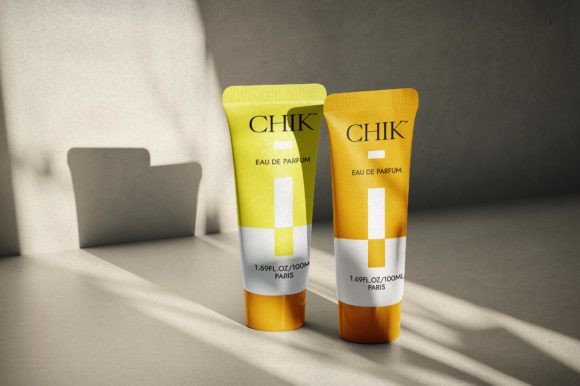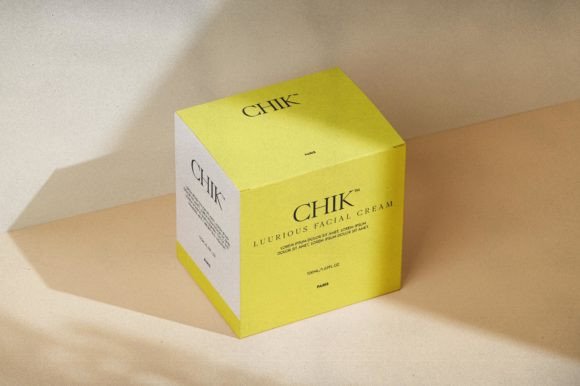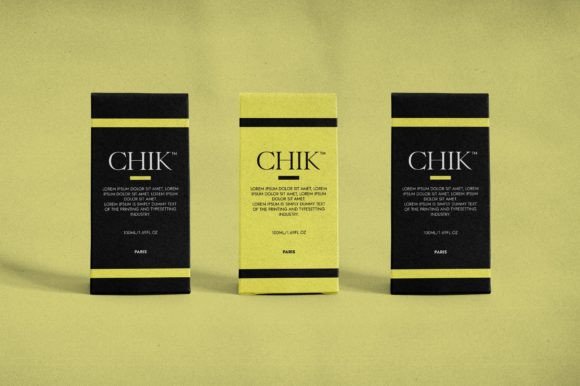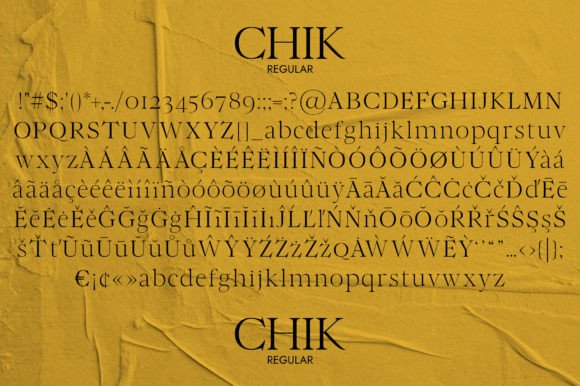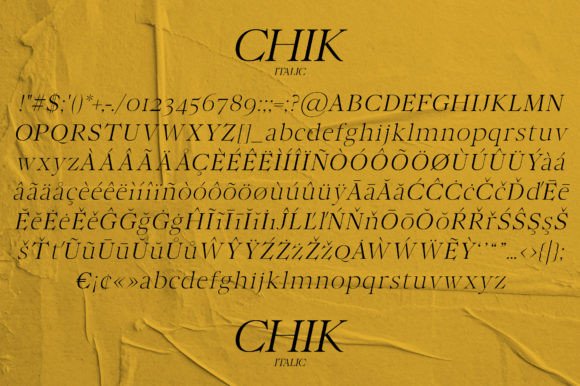
Discover the Elegance of Chik Font: A Minimalist Serif Typeface
In the world of typography, a font can make or break the aesthetic of a design. For those seeking an elegant, chic, and minimalist touch, the Chik Font is an excellent choice. As the name suggests, Chik is a serif typeface that embodies sophistication and simplicity, making it perfect for designers and crafters looking to add a unique flair to their projects.
The Unique Glyphs Construction of Chik Font
What sets Chik Font apart from other typefaces is its distinctive glyphs construction. The font’s creator has carefully crafted each character to exude a sense of elegance and refinement, while maintaining a clean and minimalist look. This unique construction makes Chik a vital choice for designers who want to add a touch of sophistication to their themes.
Whether you’re working on a luxury brand identity, a fashion magazine, or a high-end product packaging, Chik Font is an excellent choice. Its elegant glyphs will add a level of refinement to your design, setting it apart from more generic and bland typefaces.
Elegant Themes that Benefit from Chik Font
Chik Font is versatile and can be used in various elegant themes where a clean design is required. Some examples of projects that would benefit from Chik Font include:
- Luxury brand identities: Chik Font’s elegant and sophisticated look makes it perfect for high-end brands that want to convey a sense of refinement and exclusivity.
- Fashion magazines: The font’s clean and minimalist design makes it ideal for fashion publications that require a high level of elegance and sophistication.
- Product packaging: Chik Font can add a touch of luxury to product packaging, making it perfect for high-end products that require a premium look.
- Wedding and event invitations: The font’s elegant and refined look makes it suitable for wedding and event invitations that require a touch of sophistication.
Using Chik Font in Your Creative Projects
Using Chik Font in your creative projects is easy and straightforward. Here are a few tips to get you started:
- Pair Chik Font with other elegant typefaces to create a unique and sophisticated look.
- Experiment with different font sizes and styles to add visual interest to your design.
- Use Chik Font to create a sense of hierarchy in your design, reserving the font for headings and titles.
The Power of Chik Font
Chik Font is more than just a typeface – it’s a design statement. When used effectively, it can elevate your design and add a level of sophistication that sets it apart from others. By incorporating Chik Font into your creative projects, you’ll start to notice its power:
- Enhanced elegance: Chik Font will add a touch of refinement and elegance to your design, making it perfect for high-end projects.
- Increased versatility: The font’s clean and minimalist design makes it suitable for a wide range of projects and themes.
- Improved brand identity: Chik Font can help establish a strong brand identity that exudes sophistication and luxury.
In conclusion, Chik Font is a versatile and elegant serif typeface that can add a unique touch to your design projects. Its distinctive glyphs construction, clean design, and sophisticated look make it perfect for designers and crafters seeking to create high-end themes with a minimalist effect. So why not give Chik Font a try and experience its power for yourself?